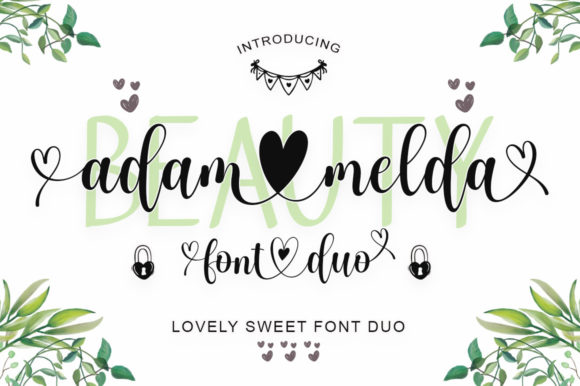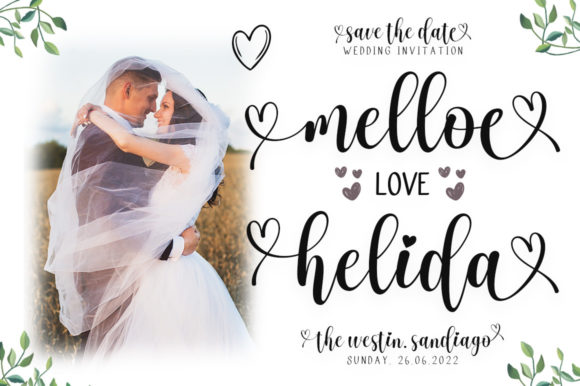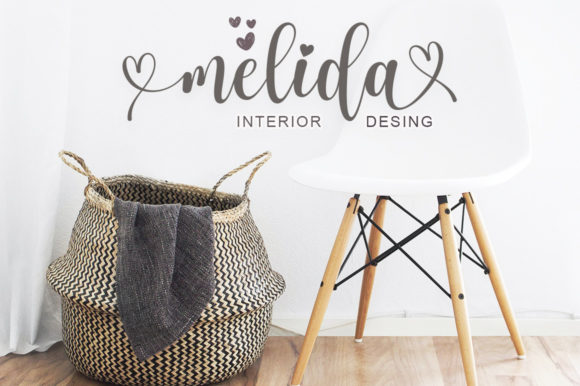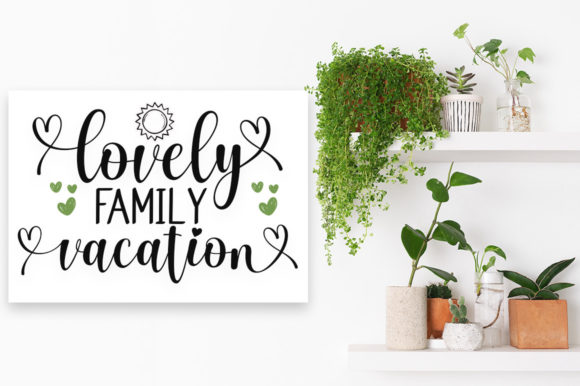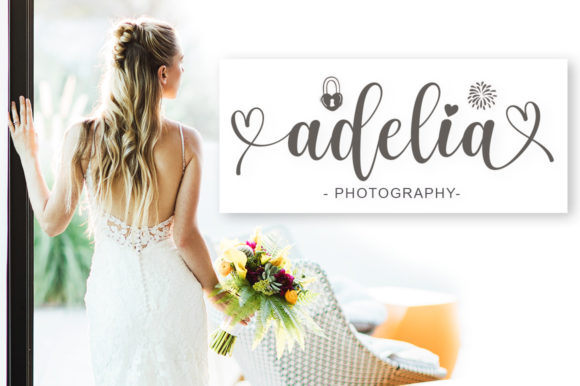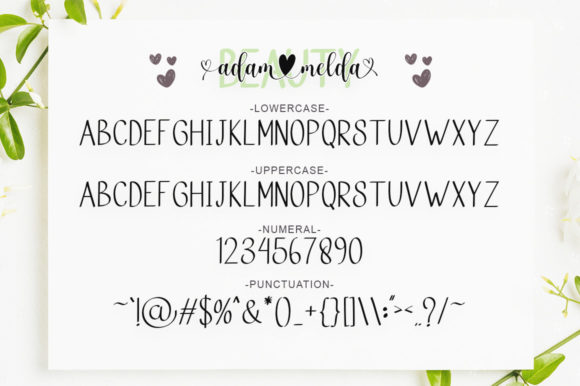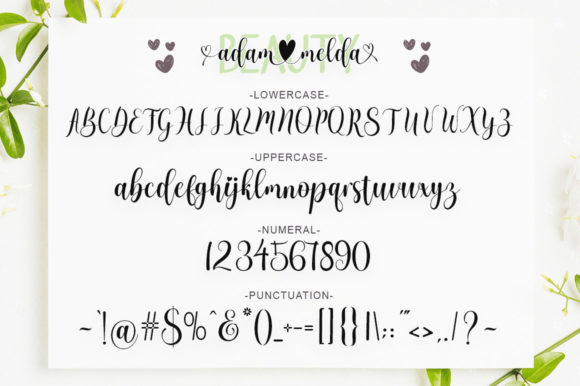
Adam Melda Lovely Font
About Adam Melda Lovely Font
Adam Melda Lovely consists of two fonts designed to complement each other perfectly. Together or apart, these fonts are ideal for adding a chic and cheery touch to your crafts. This font is PUA encoded which means you can access all glyphs and swashes with ease!